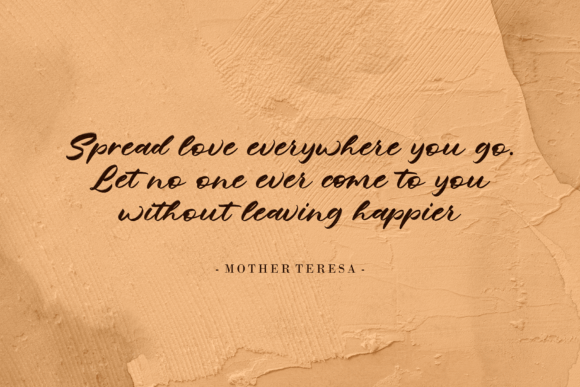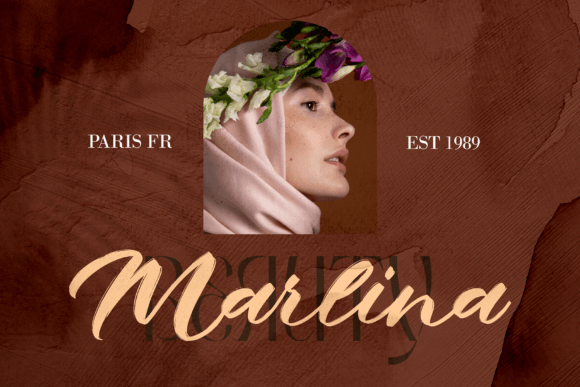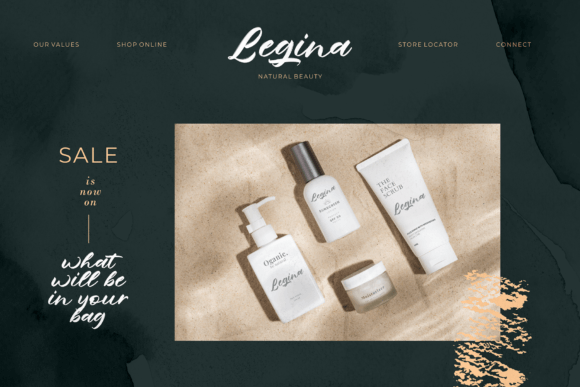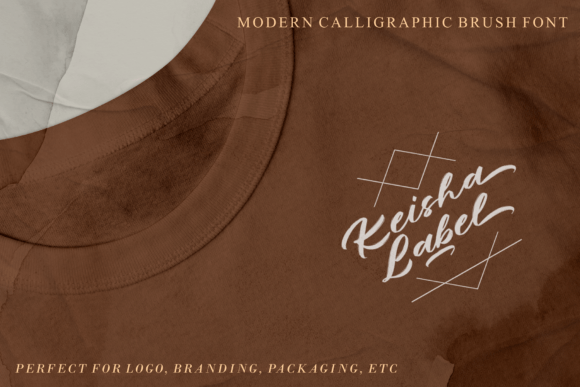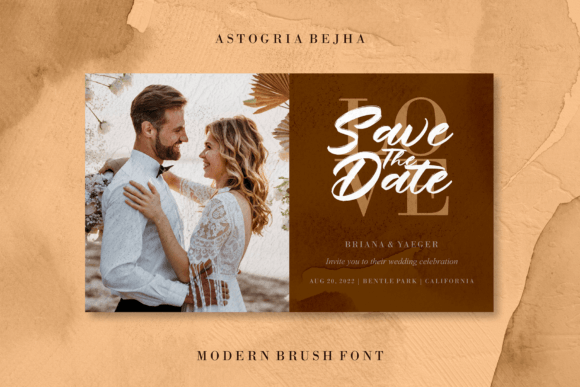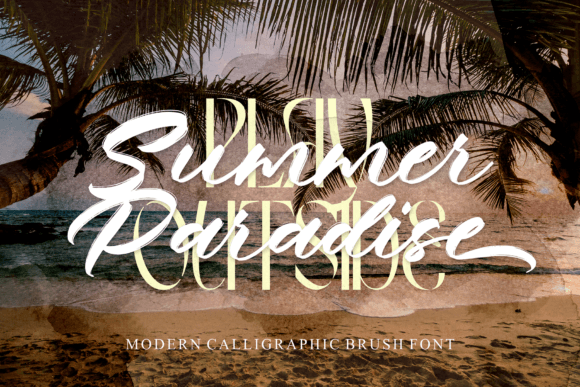
Introduction to Astogria Bejha Font
Astogria Bejha is modern hand-drawn brush font that combines attractive curves with a fresh urban edge guaranteed to add an eye-catching appeal to your logo designs, brand imagery, handwritten quotes, product packaging, merchandise, social media posts, and more.
Astogria Bejha is modern hand-drawn brush font that combines attractive curves with a fresh urban edge guaranteed to add an eye-catching appeal to your logo designs, brand imagery, handwritten quotes,